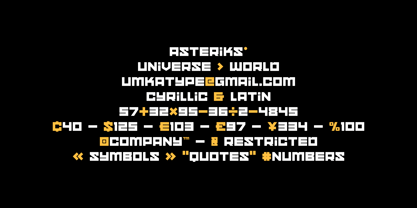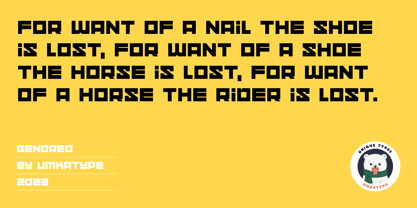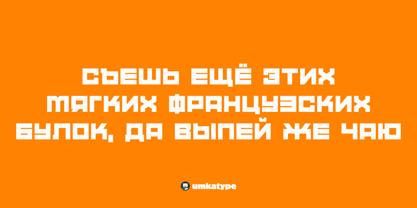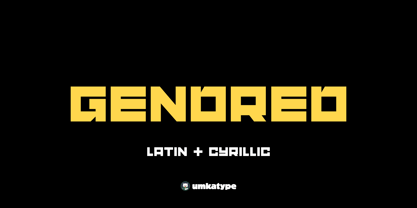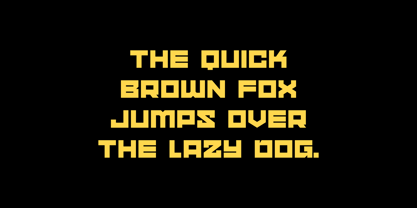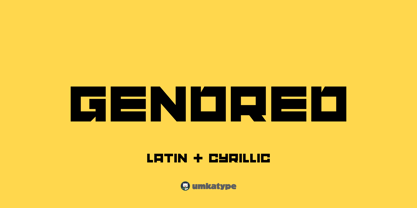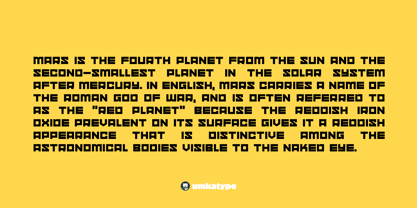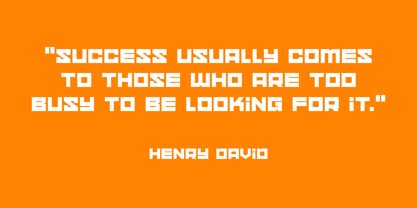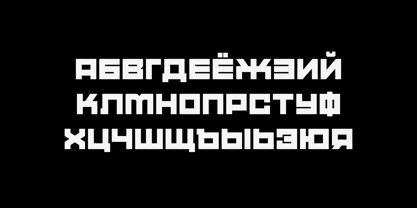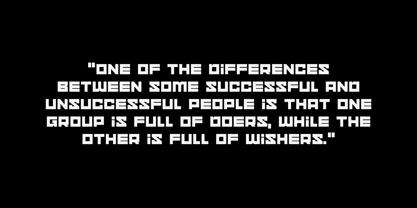
Gendred is a contemporary geometric font renowned for its impeccable kerning, making it a perfect choice for digital and print projects alike. With comprehensive support for the Cyrillic language, Gendred enables seamless multilingual communication, thanks to its distinctive square style. What sets Gendred apart is its fusion of classic proportions and a modern aesthetic, ensuring it stands out among other display fonts.
This versatile font boasts compatibility with 92 languages, including Belarusian, Russian, Afrikaans, Albanian, Asu, Basque, Bemba, Bena, Breton, Catalan, Chiga, Colognian, Cornish, Croatian, Czech, Danish, Dutch, Embu, English, Esperanto, Estonian, Faroese, Filipino, Finnish, French, Friulian, Galician, German, Gusii, Hungarian, Indonesian, Irish, Italian, Kabuverdianu, Kalenjin, Kamba, Kikuyu, Kinyarwanda, Latvian, Lithuanian, Lower Sorbian, Luo, Luxembourgish, Luyia, Machame, Makhuwa-Meetto, Makonde, Malagasy, Maltese, Manx, Meru, Morisyen, North Ndebele, Norwegian Bokmål, Norwegian Nynorsk, Nyankole, Oromo, Polish, Portuguese, Quechua, Romanian, Romansh, Rombo, Rundi, Rwa, Samburu, Sango, Sangu, Scottish Gaelic, Sena, Serbian, Shambala, Shona, Slovak, Soga, Somali, Spanish, Swahili, Swedish, Swiss German, Taita, Teso, Turkish, Upper Sorbian, Uzbek (Latin), Volapük, Vunjo, Walser, Welsh, Western Frisian, and Zulu.